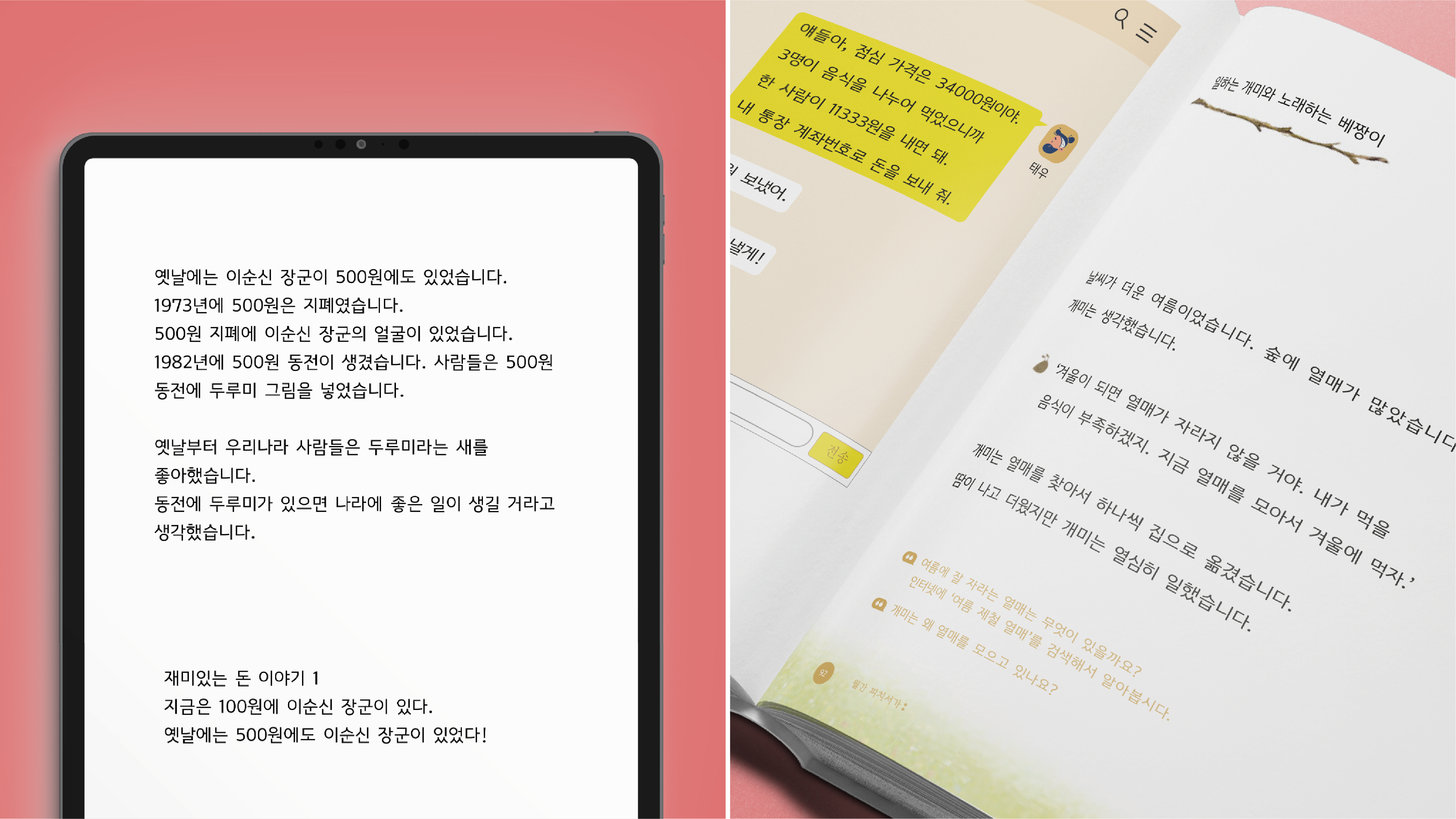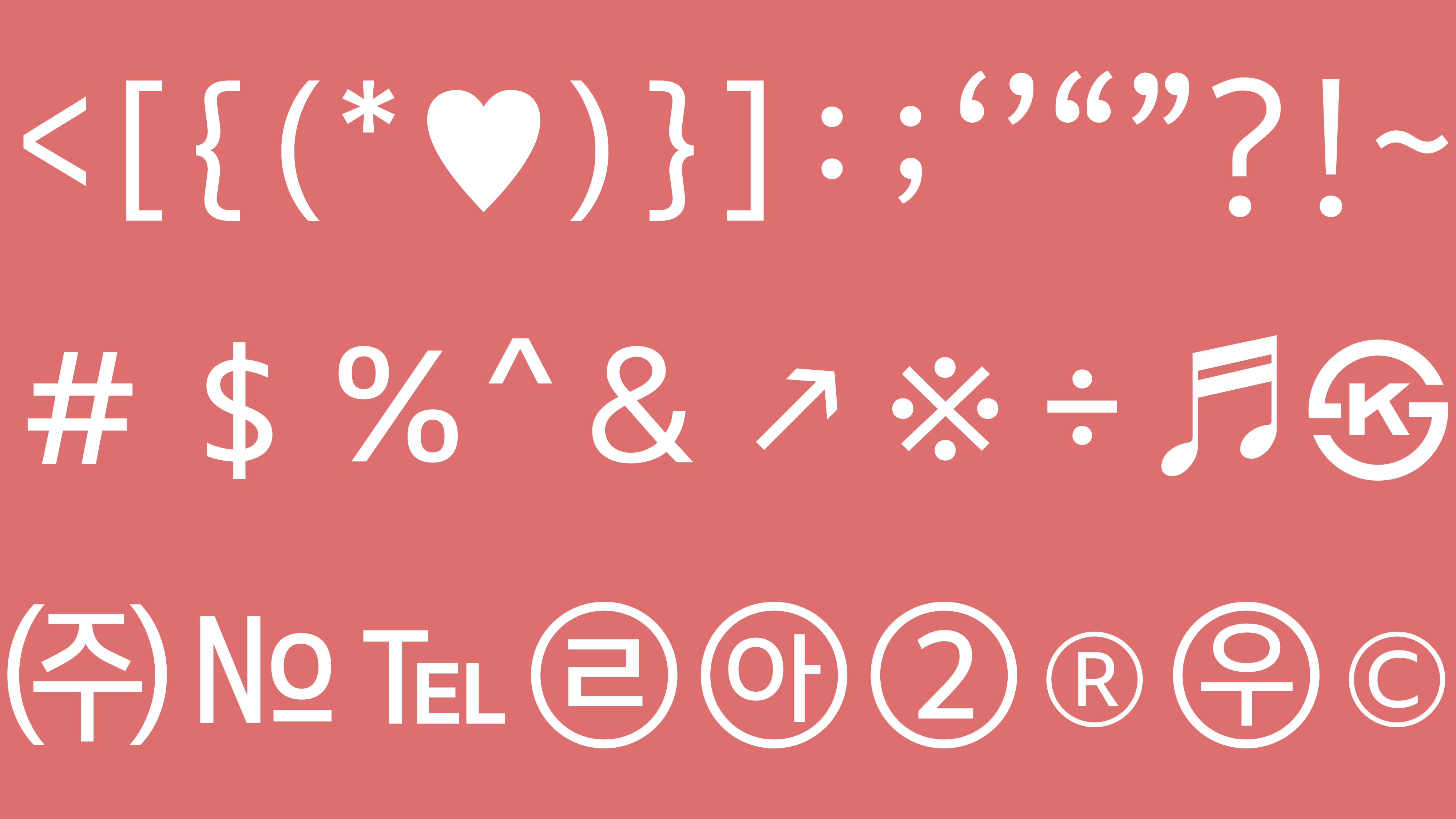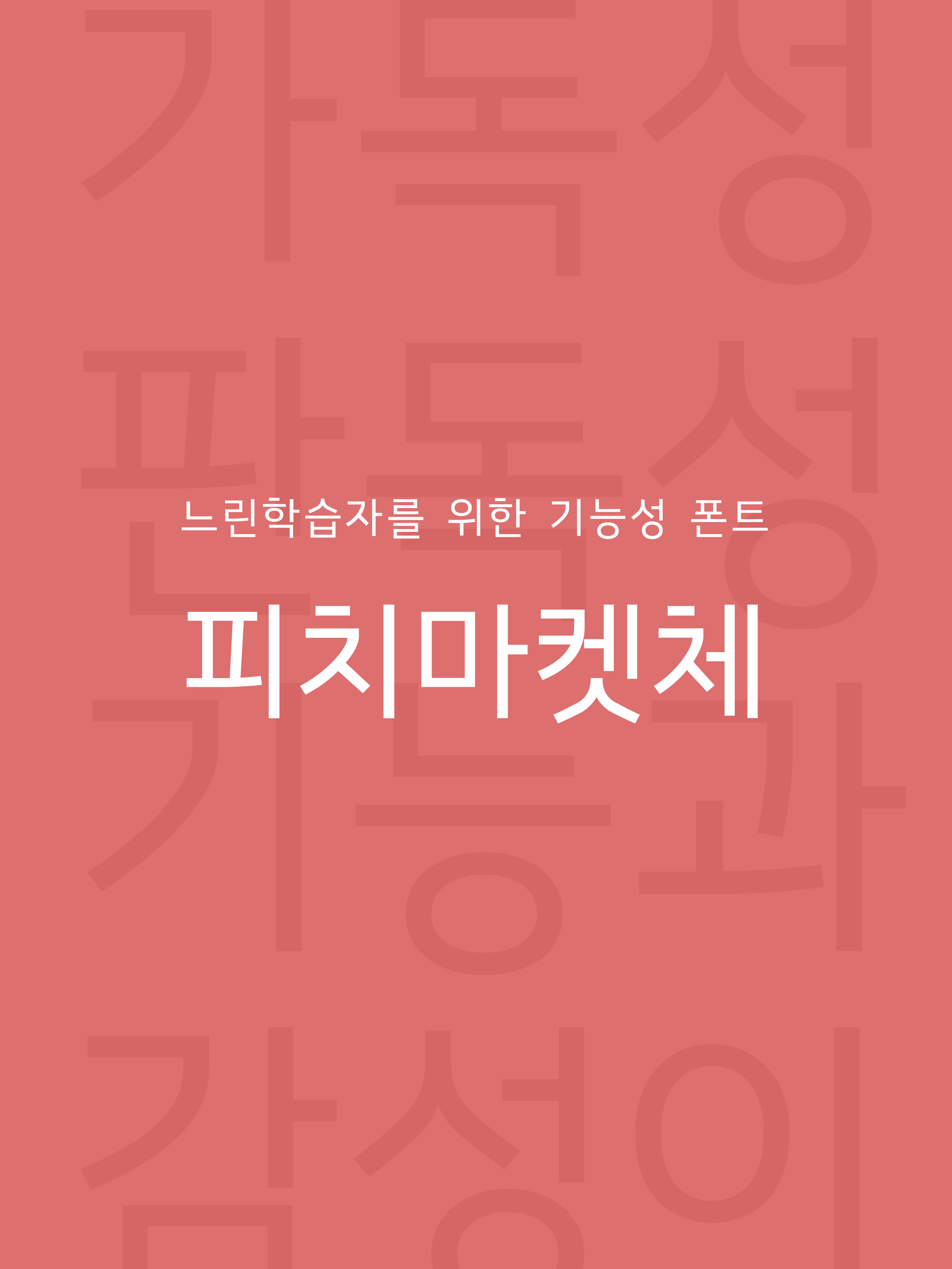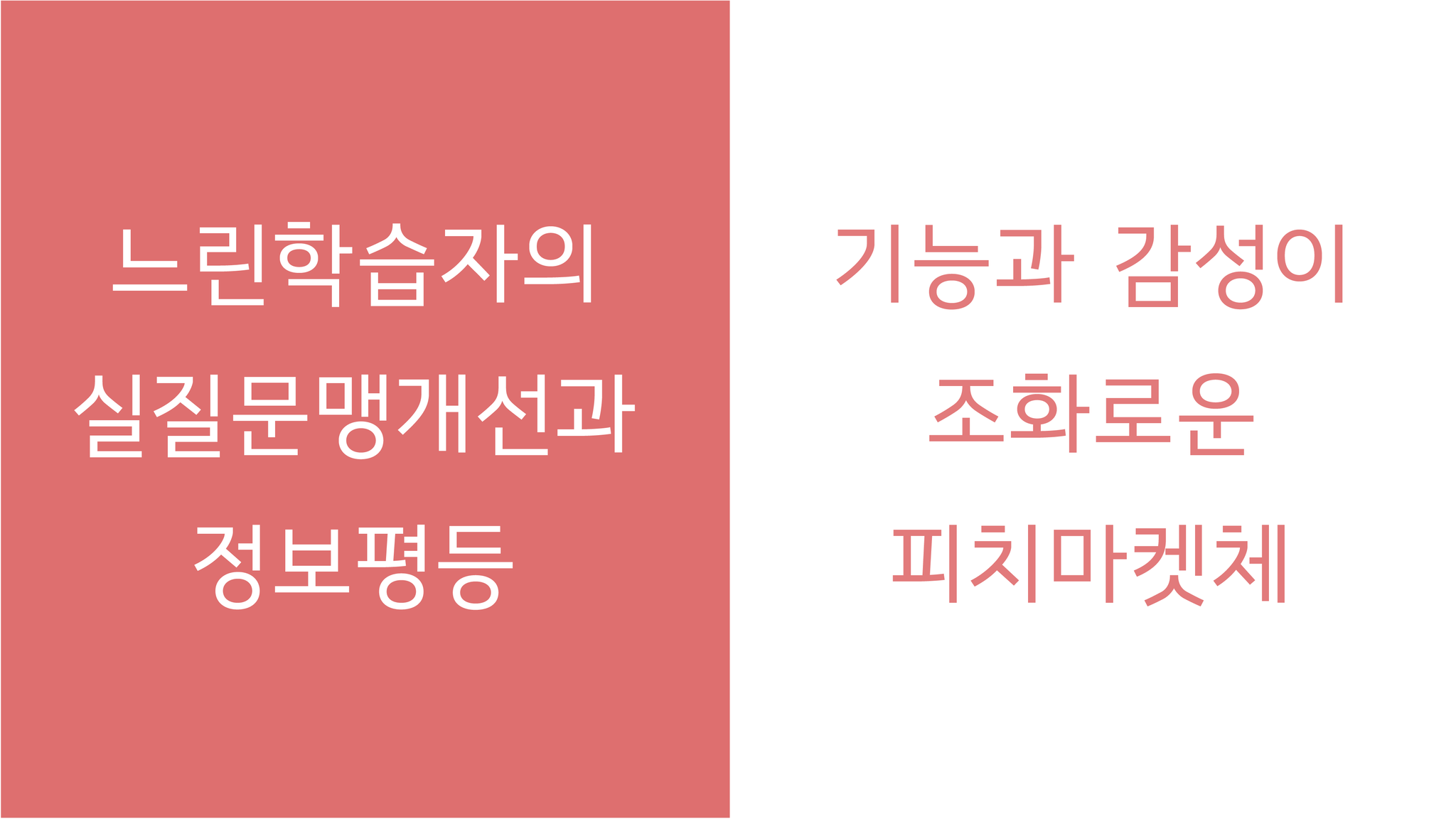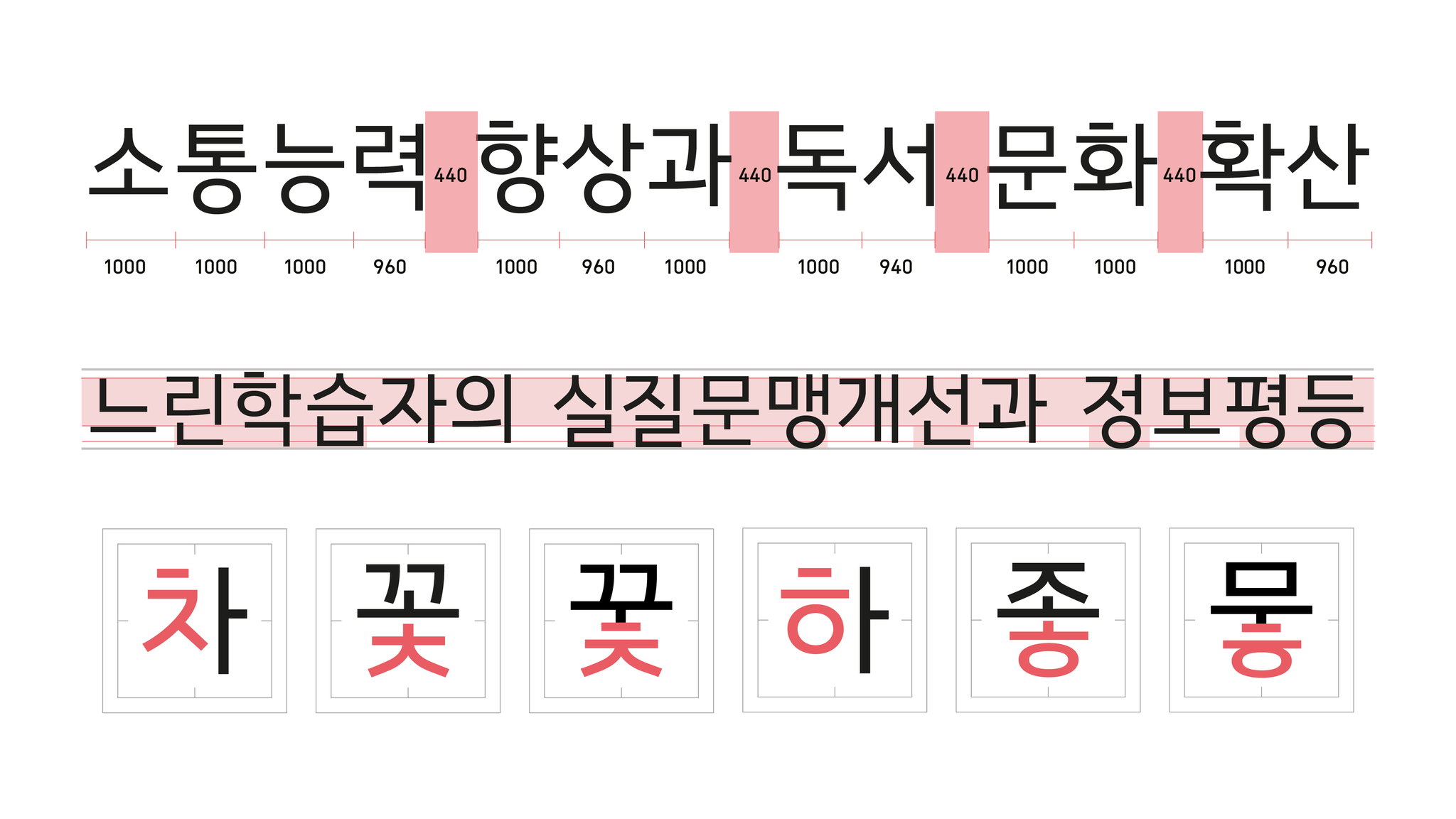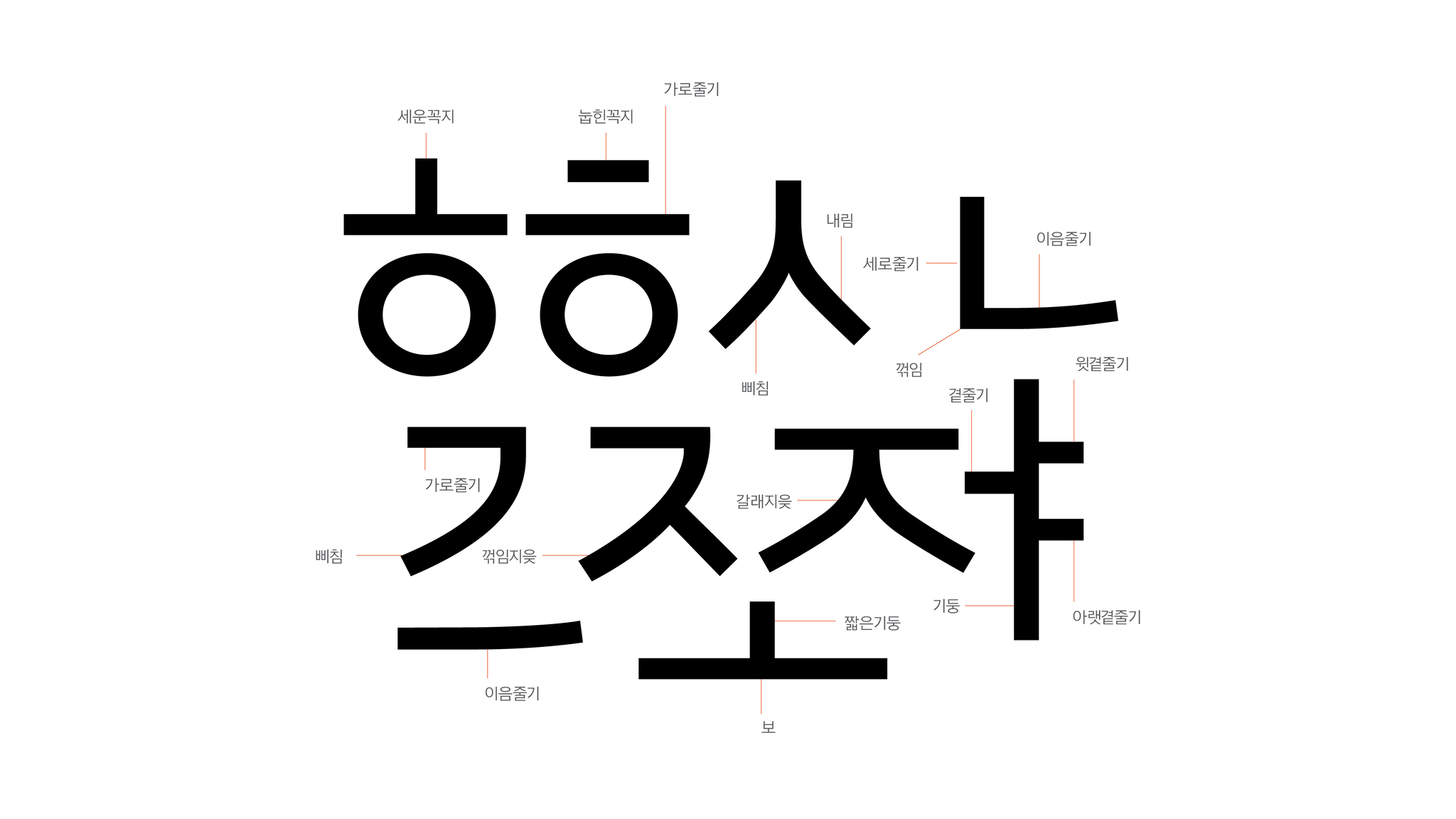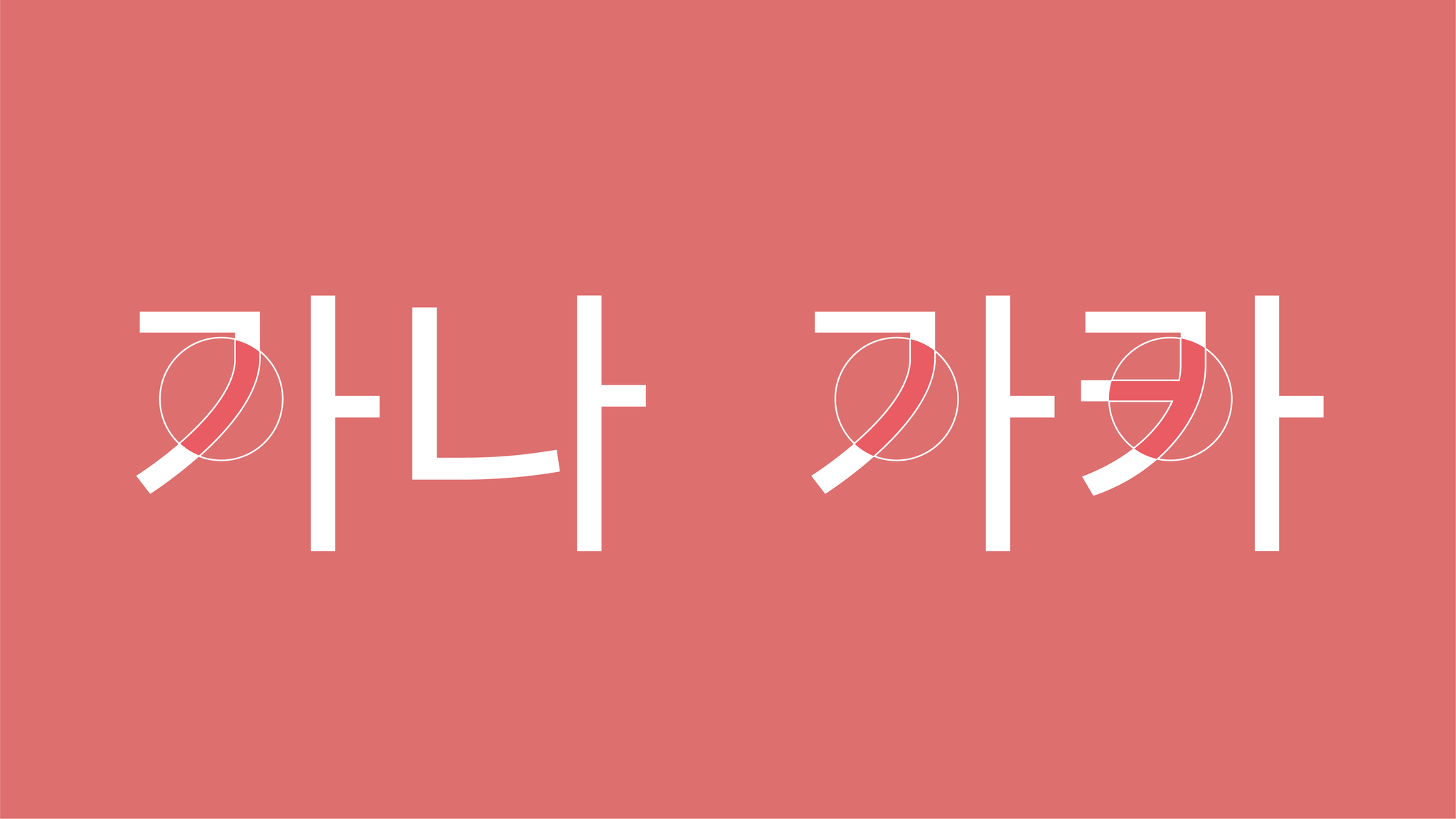
Font Design for Slow learners, "PEACHMARKET"
Font Design
Functional font design for slow learners (Borderline Intellectual Functioning), "Peachmarket" font. It was developed based on legibility and readability experiments(Eye-tracking, Misreading check, Survey, in-depth interview). The font has been developed so that slow learners can read and acquire information clearly without confusion. "Peachmarket” font is the first and only authentically functional font developed in South Korea. It is our hope that through this font, slow learners will read and recognize words clearly, thus improving the quality of their education.